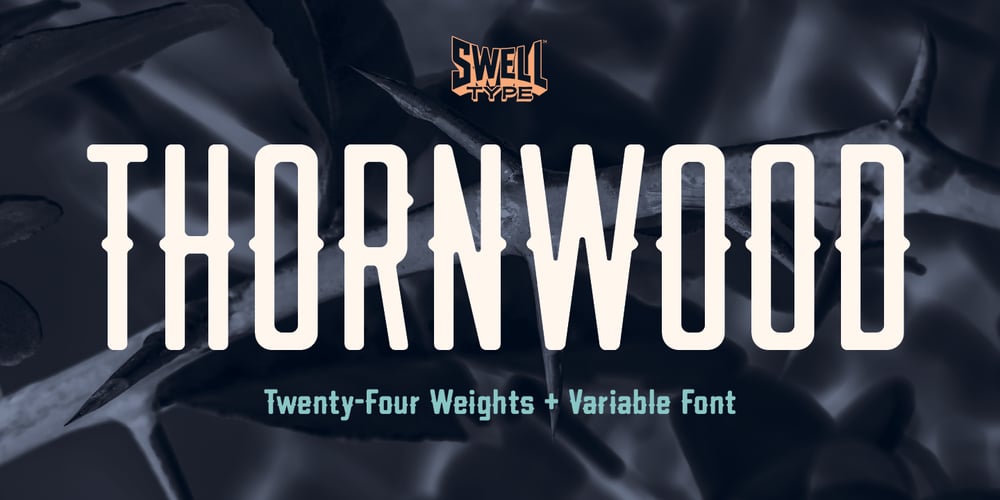
Thornwood Font Family was designed by John Roshell and published by Swell Type. Thornwood contains 25 styles and family package options. Thornwood is Goodland and Beachwood’s wild child little sibling. While they graduated college, got 9 to 5s and bought houses in the suburbs, Thornwood joined a motorcycle club and races dragsters out by the airport after midnight.But when you look past its tough, aggressive center spikes, you’ll see Thornwood is actually a bit of a softie, with its subtly rounded corners.Thornwood is ready to rock custom car & motorcycle shop logos, skateboard graphics, liquor labels, metal band logos, bar & grill menus, and anywhere else you need a hard, take-no-prisoners edge tempered by a thoughtful, softer side.And you can always customize Thornwood to your exact preferences with two built-in stylistic sets of alternate letters.